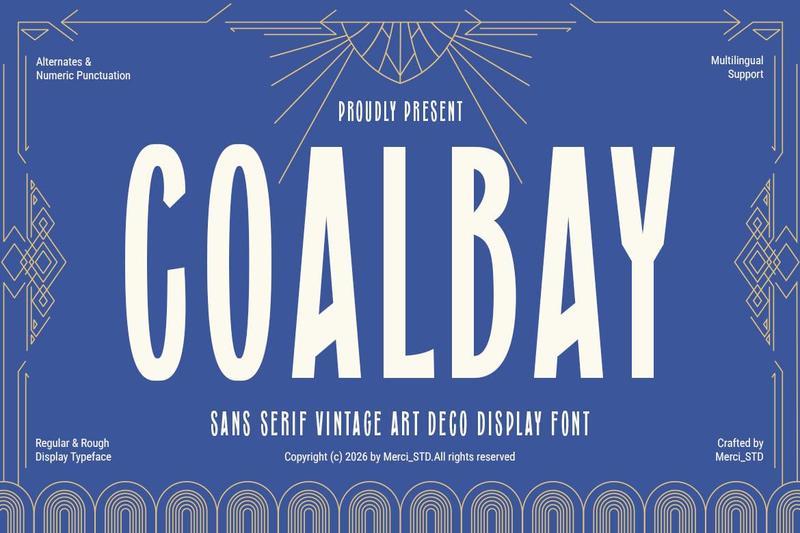
Coalbay – Vintage Art Deco Sans Serif Font A9UA2FE
Coalbay Vintage Art Deco Sans Serif Font A9UA2FE
Coalbay is a vintage Art Deco inspired sans serif display font featuring tall proportions, geometric elegance, and timeless sophistication. Perfect for branding, posters, editorial design, signage, packaging, hospitality projects, and luxury visual identities. The combination of classic Art Deco influence and modern simplicity creates a stylish and memorable typographic experience.
* Uppercase Letters
* Numbers & Punctuation
* Ligature & Alternate Character
* Unique Hand-Drawn Style